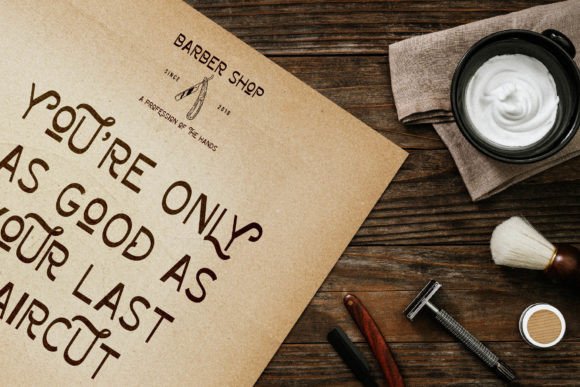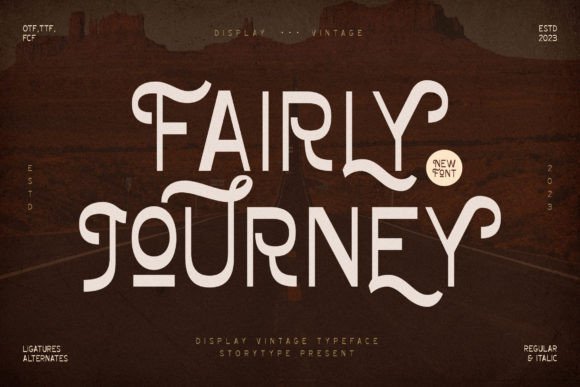
Introduction to Fairly Journey Font
Fairly Journey is a modern and classy display typeface that has its own unique style and unique look.
👤 Author Storytype Studio
This typeface is perfect for an elegant and luxury logo, book or movie title design, fashion brand, magazine, clothes, lettering, quotes, and so much more .
Key Features of Fairly Journey Font
Why Choose Fairly Journey Font?